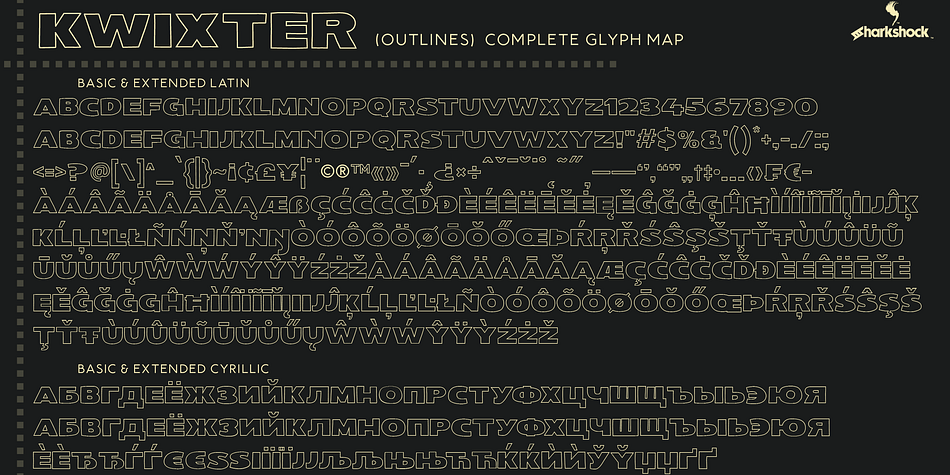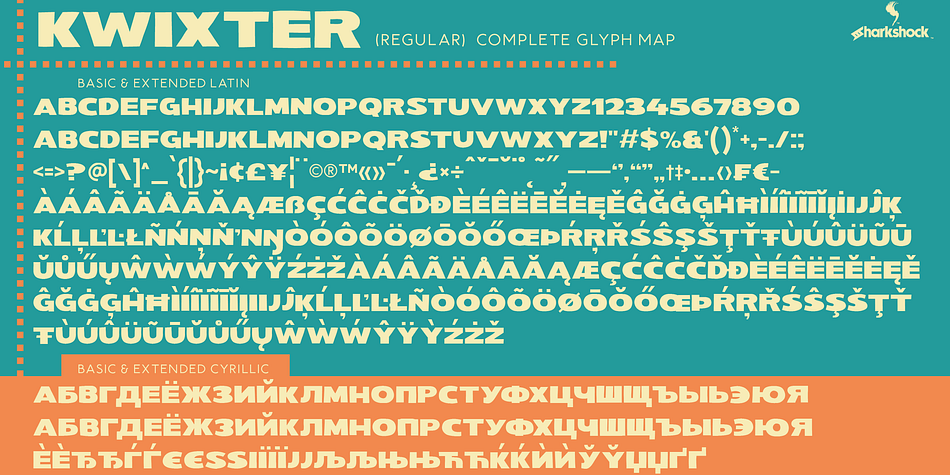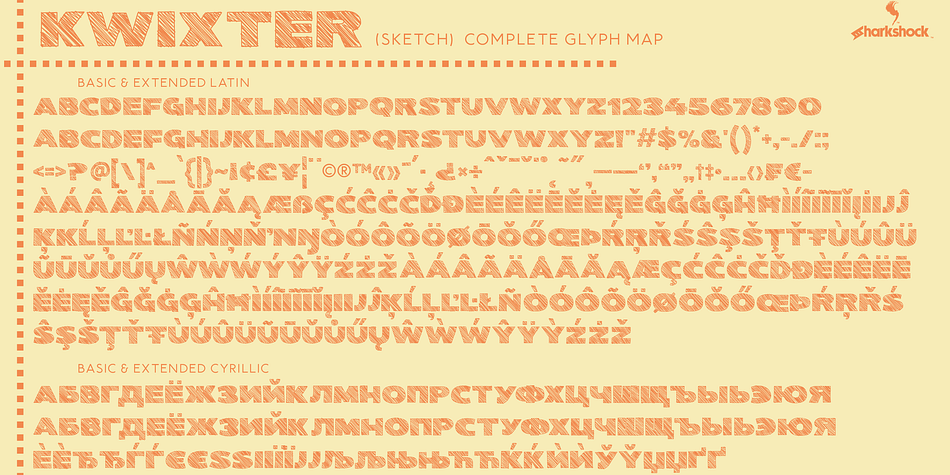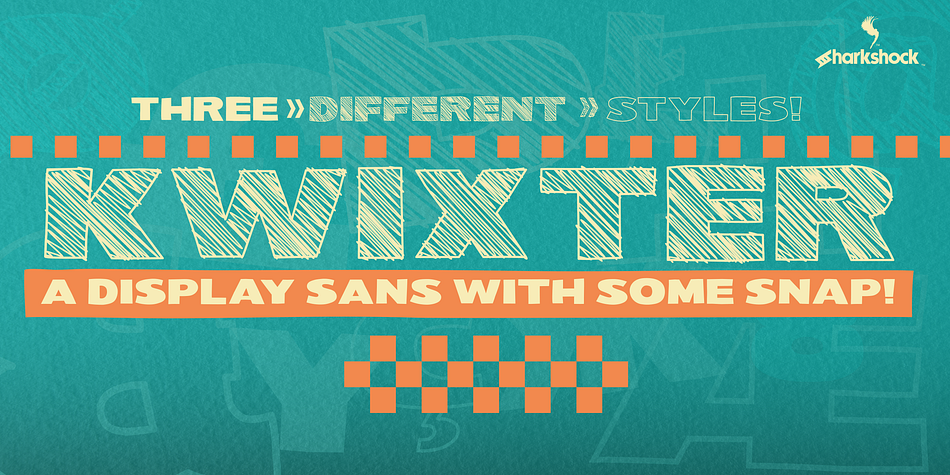
Designed by Dennis Ludlow, Kwixter is a hand display font family. This typeface has three styles and was published by Sharkshock.
Kwixter is a rugged, all caps, display sans that doesn’t take itself too seriously! The 3 different versions include Regular, Outlines, and Sketch. This broad, yet childlike font was designed to take up horizontal space and inject a little playfulness into your project. The binary nature of this family means it will find many helpful uses in your type collection over the years. It’s structured enough for commanding web headers yet cartoony enough to end up on a kid’s book. Use Kwixter for a company logo or the Sketch version for toy packaging/merchandising.